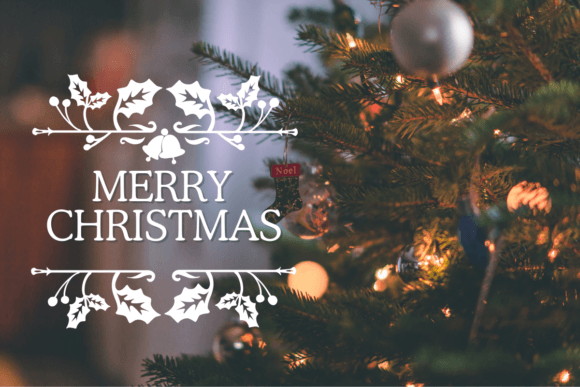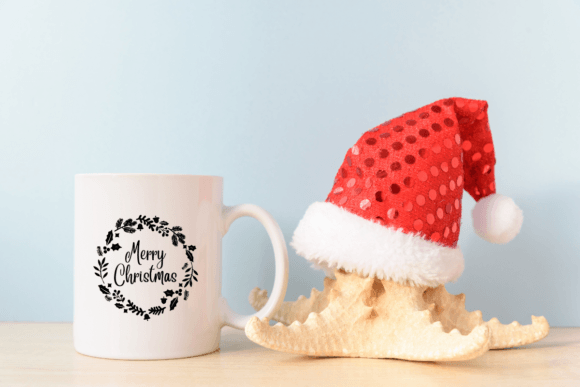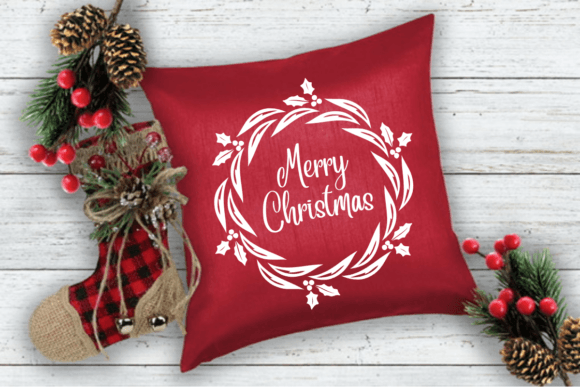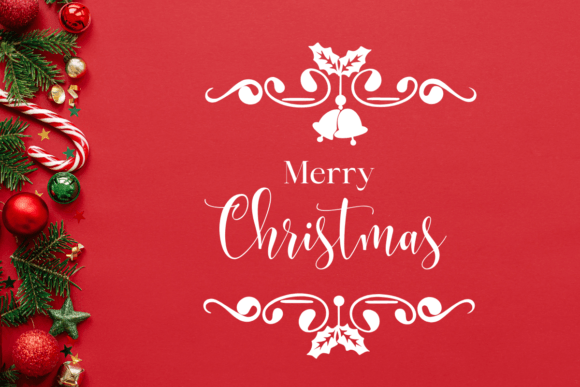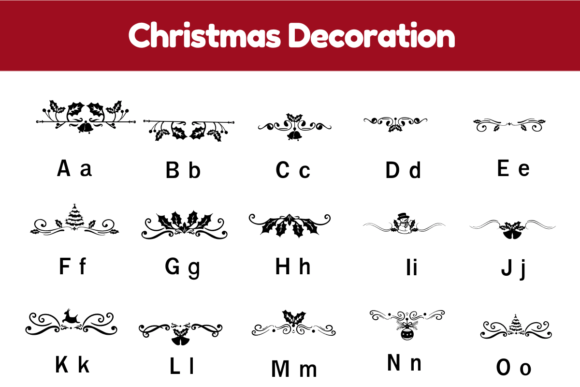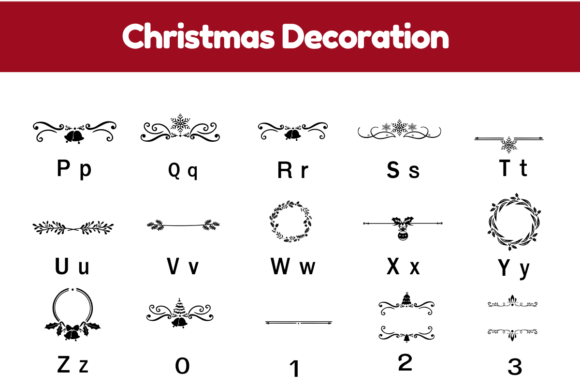
The Magic of Christmas Decoration Font: Elevate Your Creative Projects
As the holiday season approaches, many of us are filled with excitement and anticipation, brainstorming ideas for festive decorations, gifts, and events. I still remember the joy of decorating my childhood home with handmade ornaments and colorful lights – a tradition that sparked a lifelong passion for creativity and self-expression.
That’s why I’m thrilled to introduce you to the Christmas Decoration Font, a charming dingbat font that brings the spirit of the season to life. This delightful font is perfect for adding a personal touch to your creative projects, from wedding invitations and DIY crafts to logos and decorations. With its festive theme and playful design, the Christmas Decoration Font is a valuable asset for designers looking to infuse their work with a dash of holiday magic.
Key Features of Christmas Decoration Font
- Character Count: This font contains 230 characters, including uppercase and lowercase letters, numbers, and punctuation marks.
- Unique Characteristics: The font features intricate, hand-drawn designs with ornaments, holly, and other Christmas-themed elements, making it perfect for holiday-themed designs, greeting cards, and packaging.
Christmas Decoration Font Review
Overall, I think the Christmas Decoration Font is a delightful addition to any holiday design project. ✨ It’s full of festive charm and immediately conveys the feeling of the season.
One of the standout features of this font is its versatility. ✨ It’s perfect for use in a wide range of applications, from social media graphics to print materials like invitations and gift tags.
Here are some specific features that make this font shine:
- Fun and festive designs that are perfect for the holiday season
- High-quality images that are crisp and clear
- Easy to customize and use in various design projects
- ⚠️ Limited font styles and variations – there are only a few options to choose from
- ⚠️ May not be suitable for more serious or formal designs
Overall, I think the Christmas Decoration Font is a great choice for anyone looking to add a touch of holiday cheer to their designs. While it may have some limitations, its charm and versatility make it a worthwhile addition to any designer’s toolkit.
Tips for Getting the Most Out of the Christmas Decoration Font
Use the font to add a festive touch to your designs, combining it with other holiday-themed elements.
Experiment with different font sizes, colors, and styles to create a unique and eye-catching look.
Use the font in combination with other design elements, such as images and shapes, to create a cohesive and engaging design.
The Christmas Decoration Font is ideal for:
Creating holiday-themed designs, such as greeting cards and gift tags.